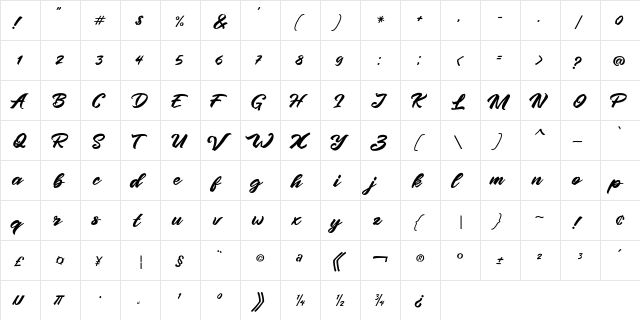
Pintenium Free Personal Use Regular
Design Context for Pintenium Free Personal Use Typeface
Pintenium Free Personal Use is a composed and adaptable typeface that performs quietly and consistently across a wide range of design contexts.